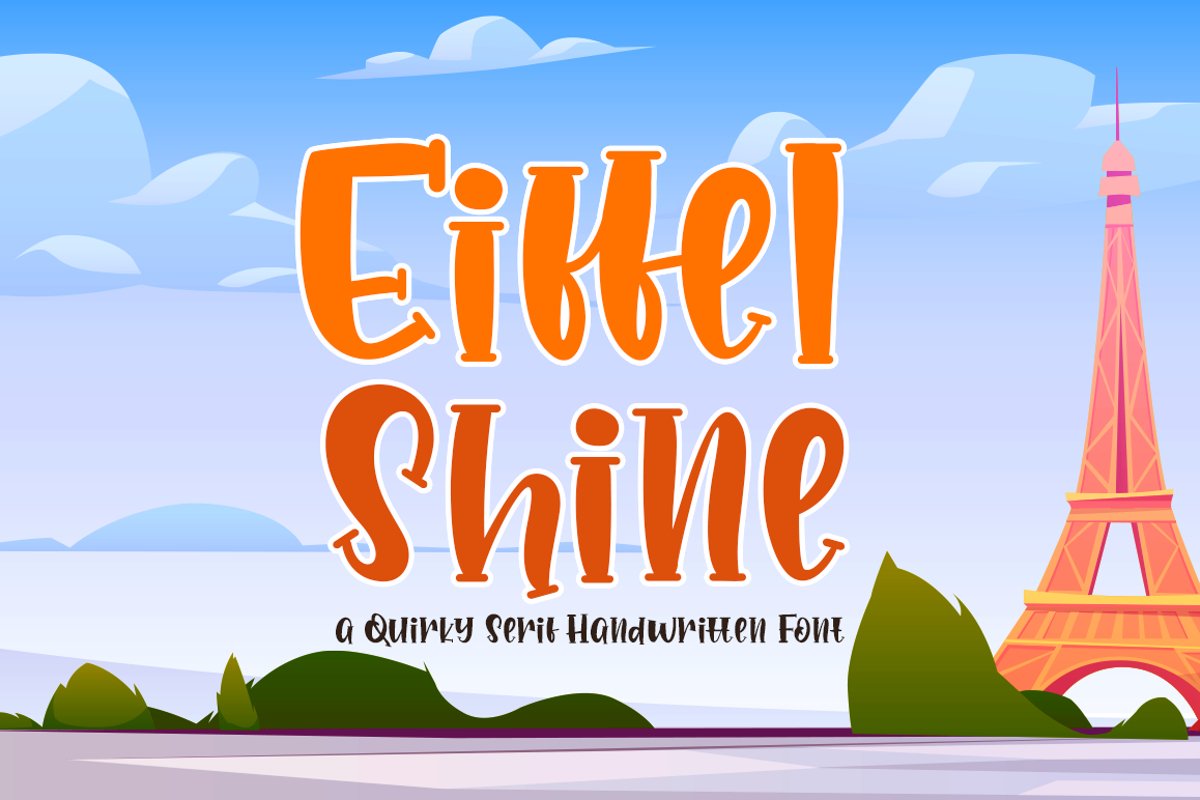
Eiffel Shine Cute Serif Handwritten Font
Eiffel Shine
A cute serif quirky font style
• Cute style with average high of uppercase
• Ligatures of the lowercase